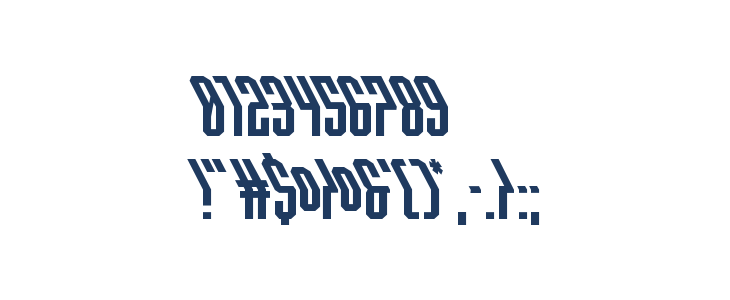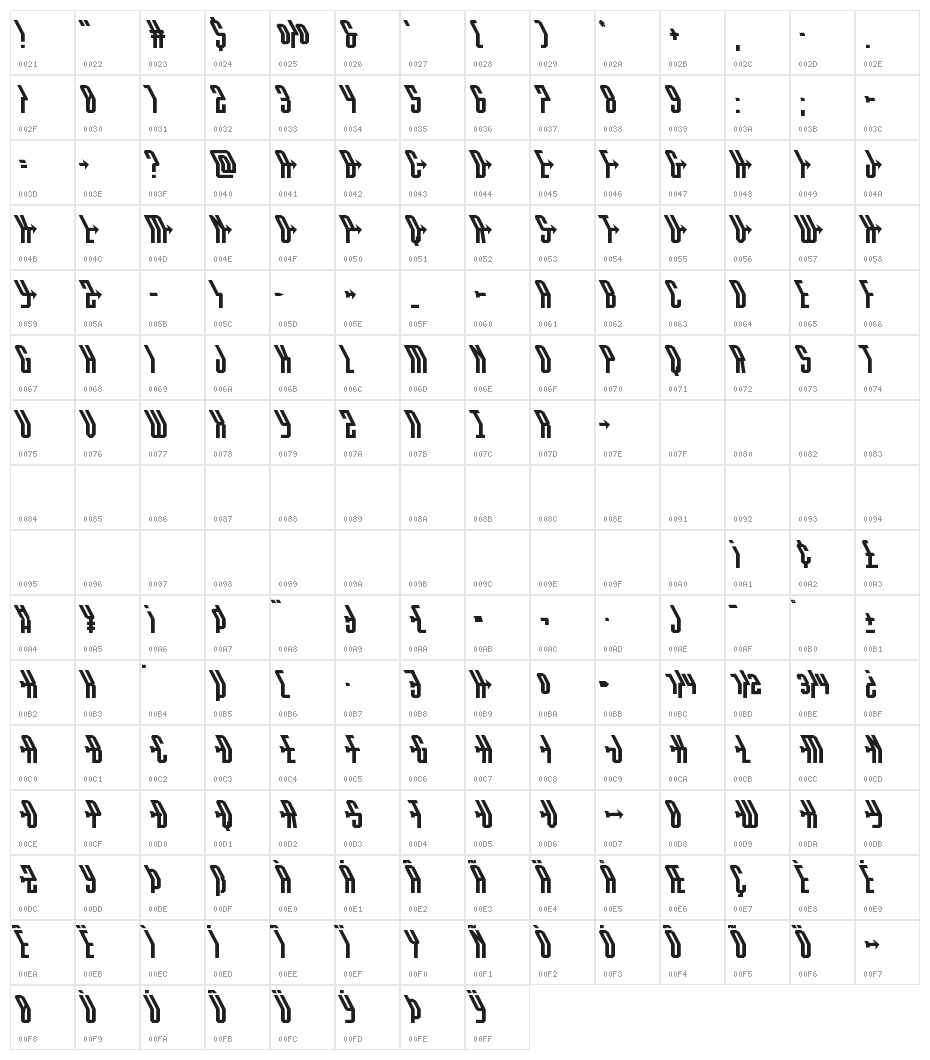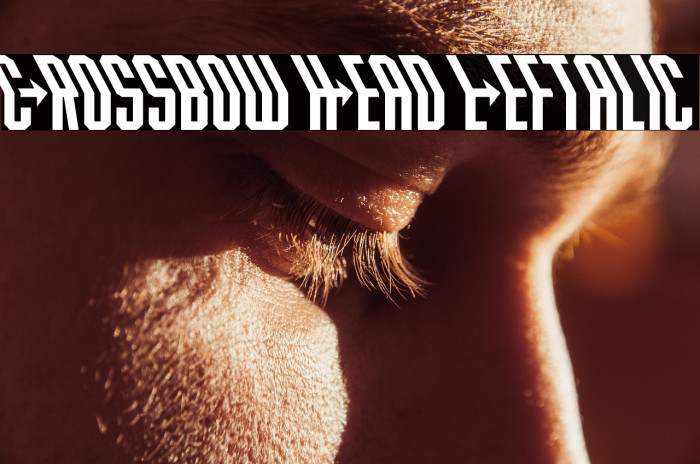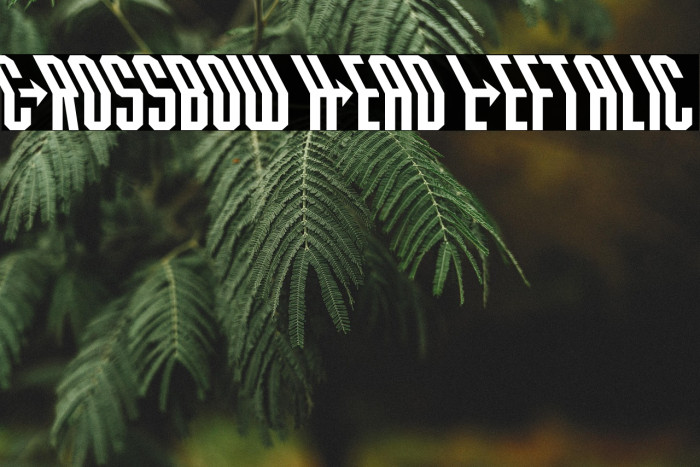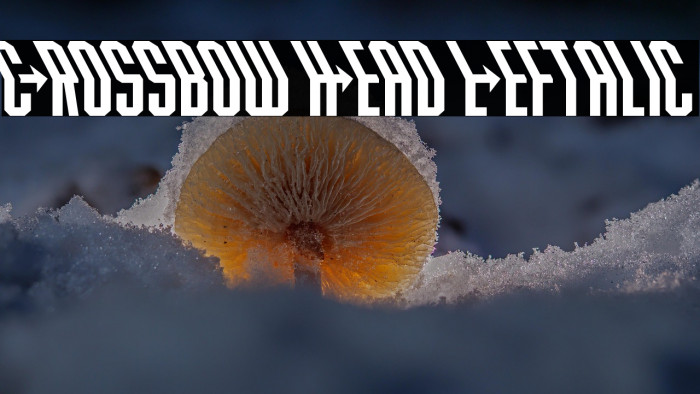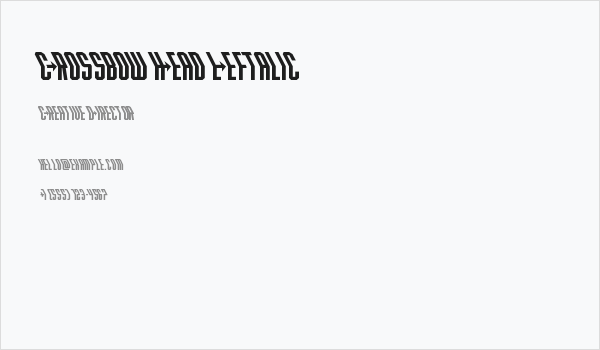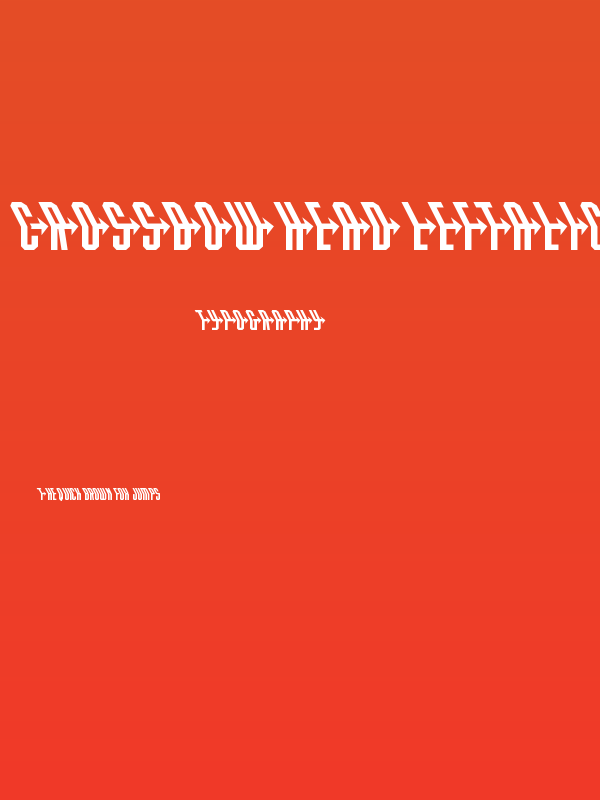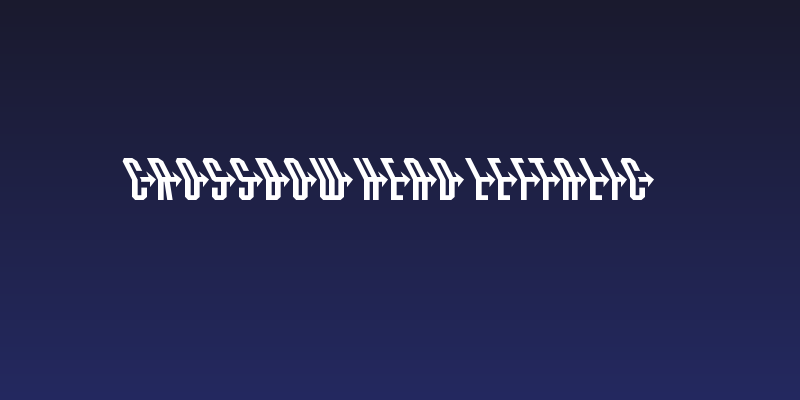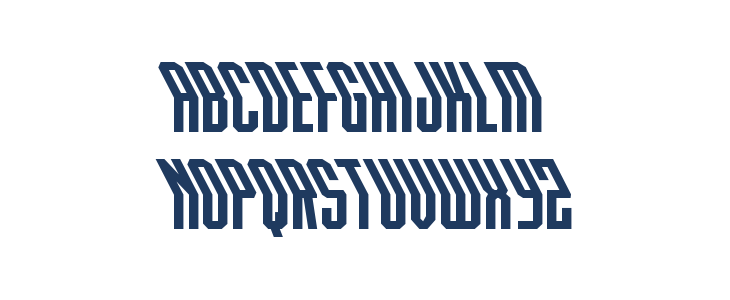
This font features a bold, angular design with a futuristic and dynamic appearance. The characters are constructed with sharp edges and pointed tips, giving them a sense of movement and direction. The uppercase and lowercase letters maintain a consistent style, with a unique emphasis on geometric shapes and symmetry. The numbers and special characters follow the same design principles, ensuring uniformity across all glyphs. This font's distinct style makes it stand out, capturing attention with its bold and assertive presence.
| Proposed Projects | Ideal for sci-fi themed projects, video game titles, posters, and branding that requires a modern and edgy look. |